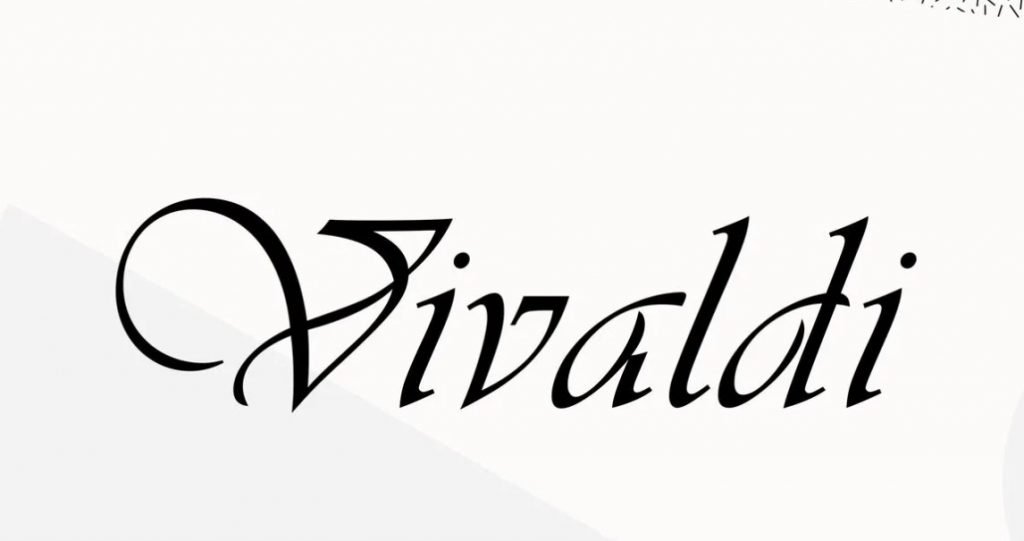
The feature that makes this typeface suitable for every designing aspect is it's looking that when used for small text with conspiracy font provide a great
Today we will share with you the amazing typeface that was created by Fritz Peters. Introducing Vivaldi Font that is the script typeface that you should use this creating unique designs.
The feature that makes this typeface suitable for every designing aspect is it's looking that when used for small text with conspiracy font provide a great reading experience.
There are three different styles that are available with this typeface that is namely ordinary, alt, and italic and every style that is available in this typeface contains 9 different font weights that make a total count of 27 fonts.
We had seen the usage of this typeface in many templates that are made upon Adobe Photoshop. This typeface alongside kiona font is present inside the google fonts.
This Font was designed by Fritz Peters in 1970. This is a Script Old Style font.
The Lucida Calligraphy is very close to the Vivaldi font.